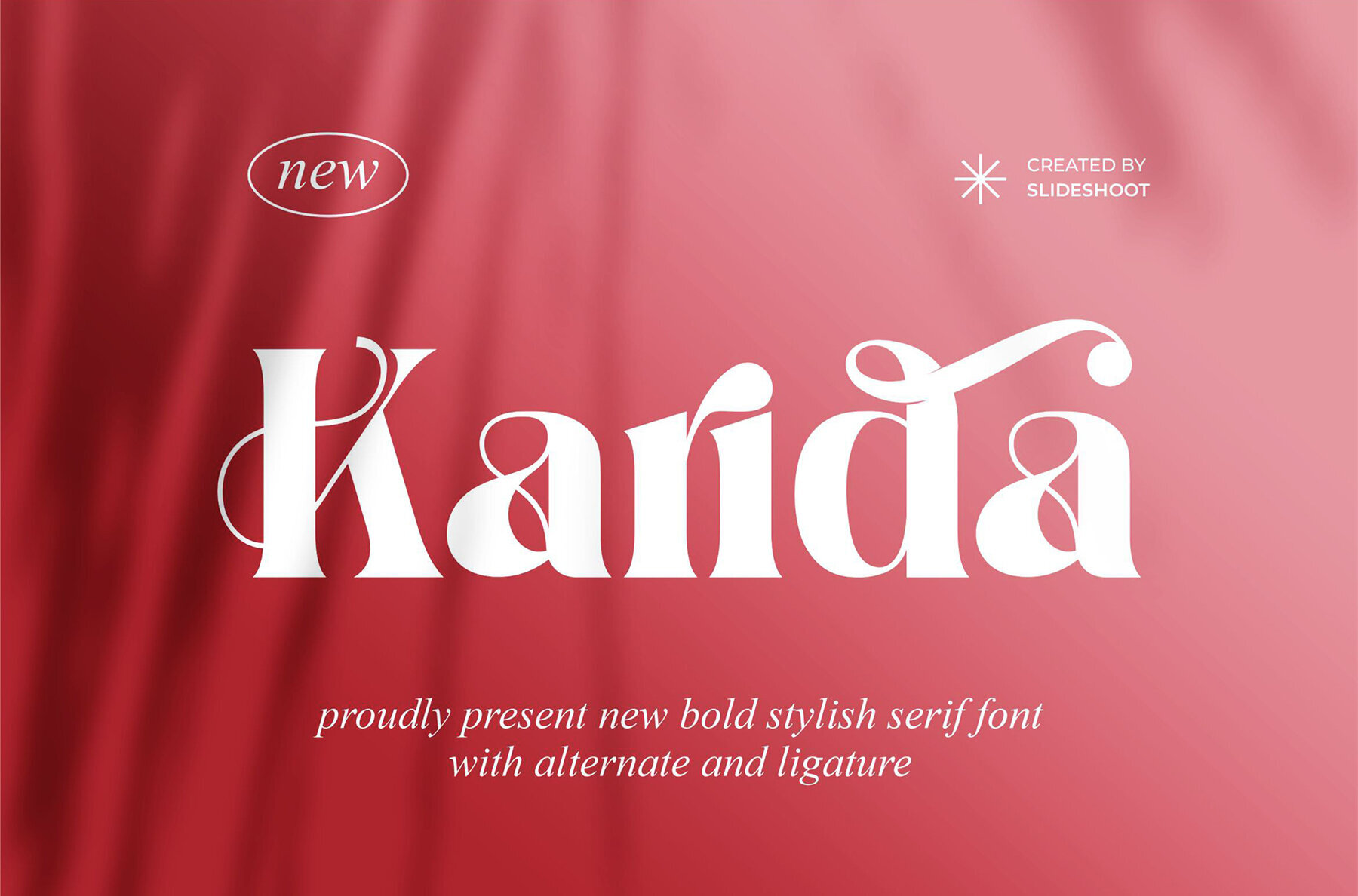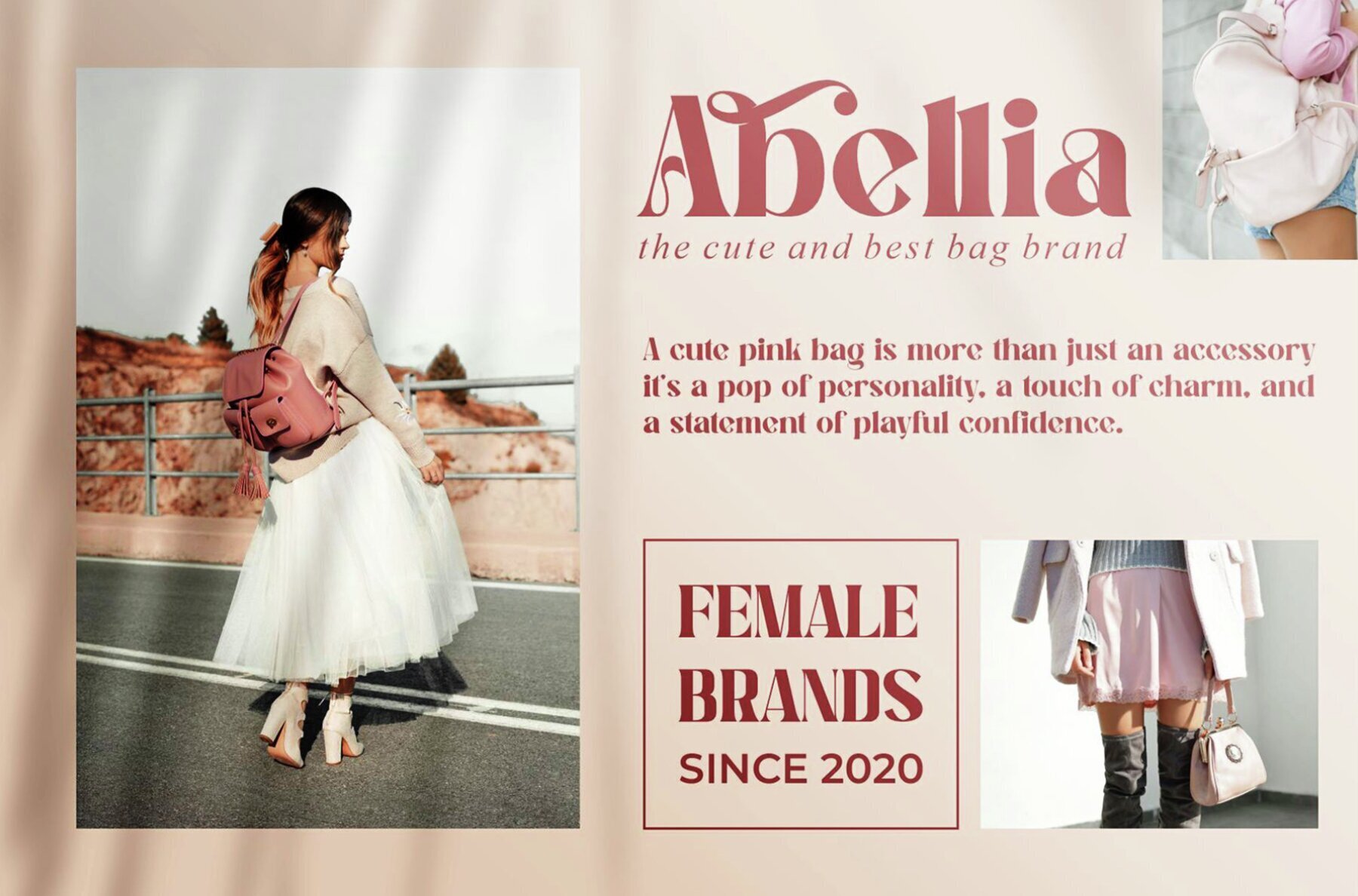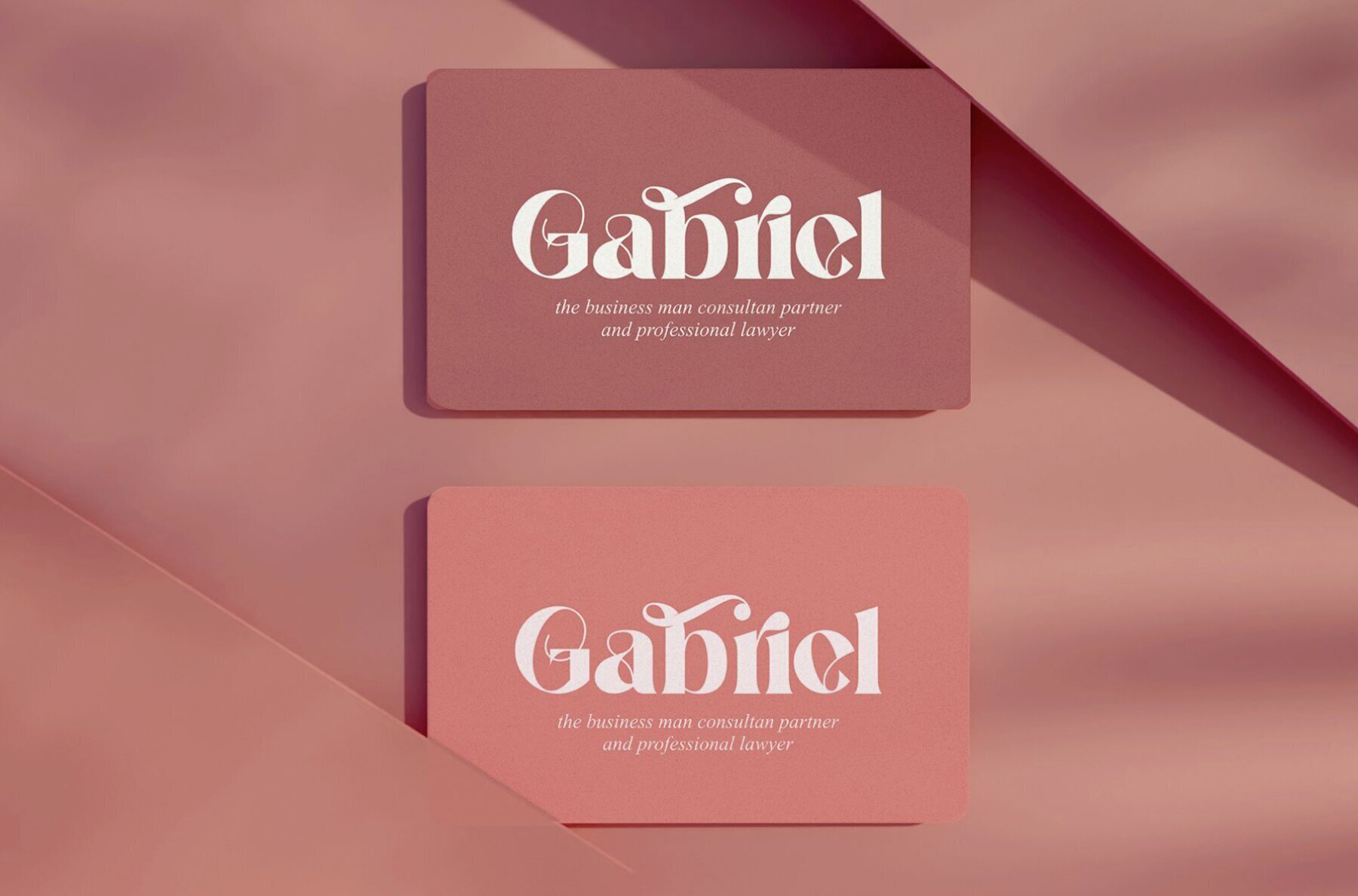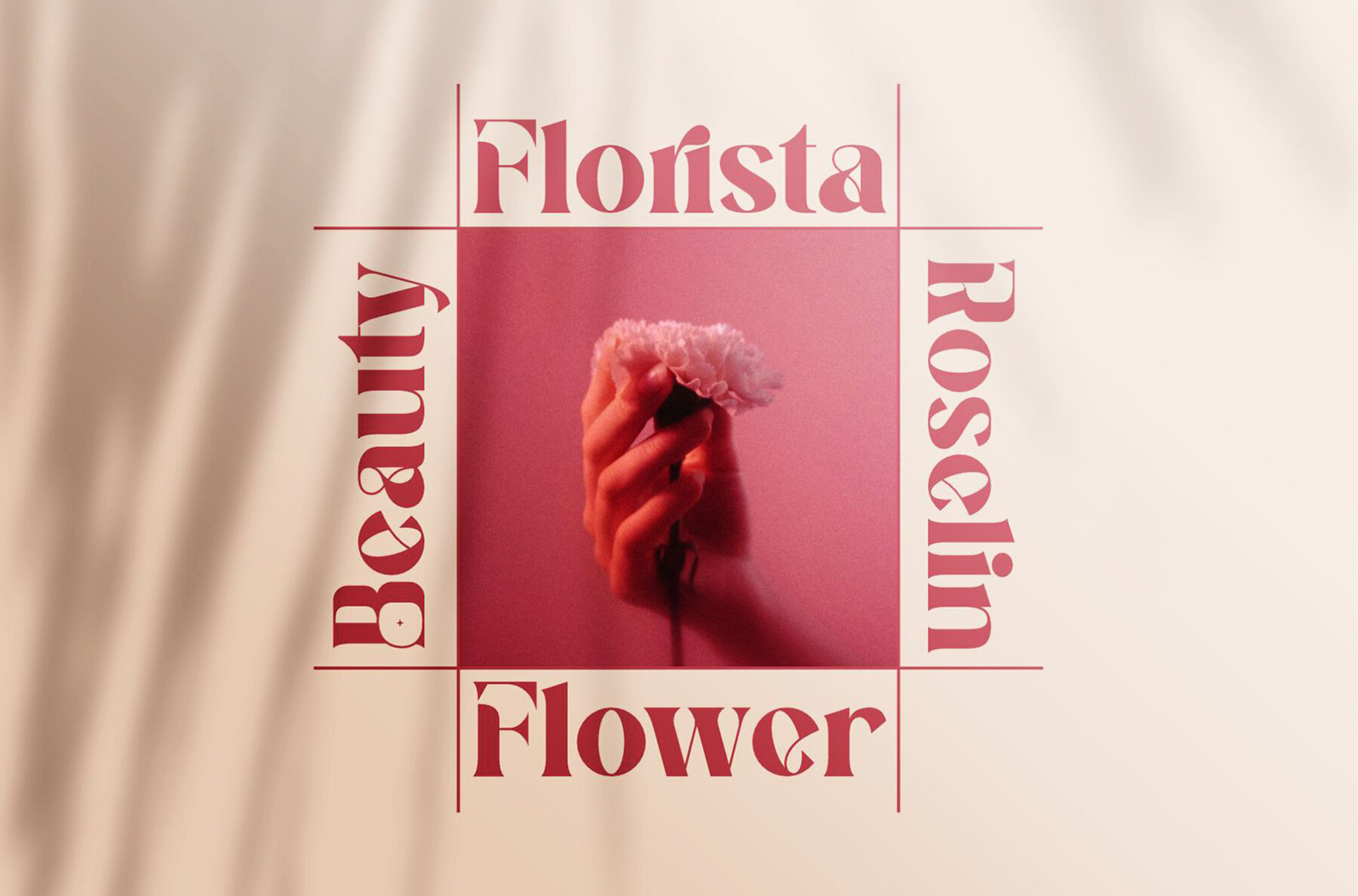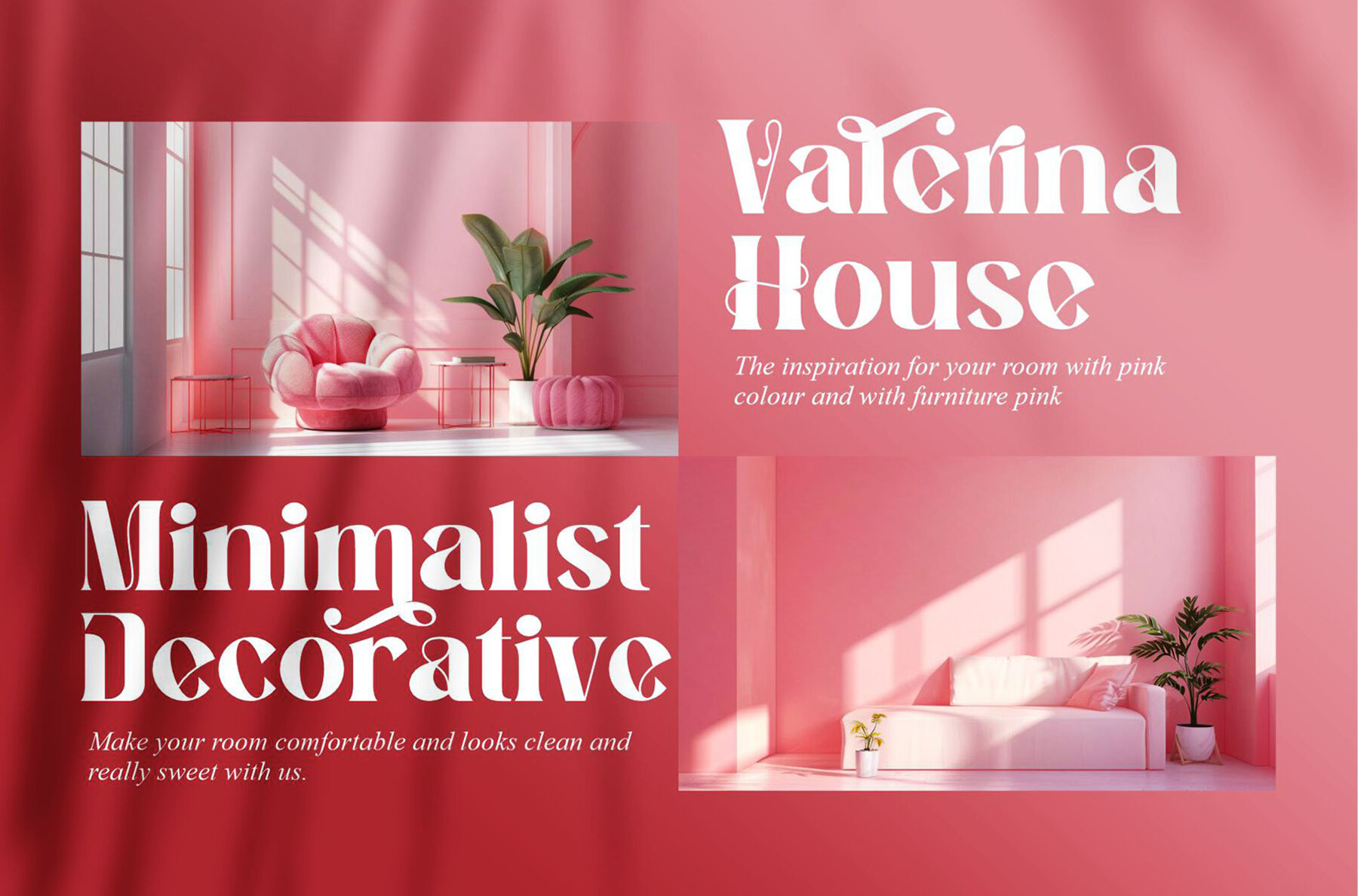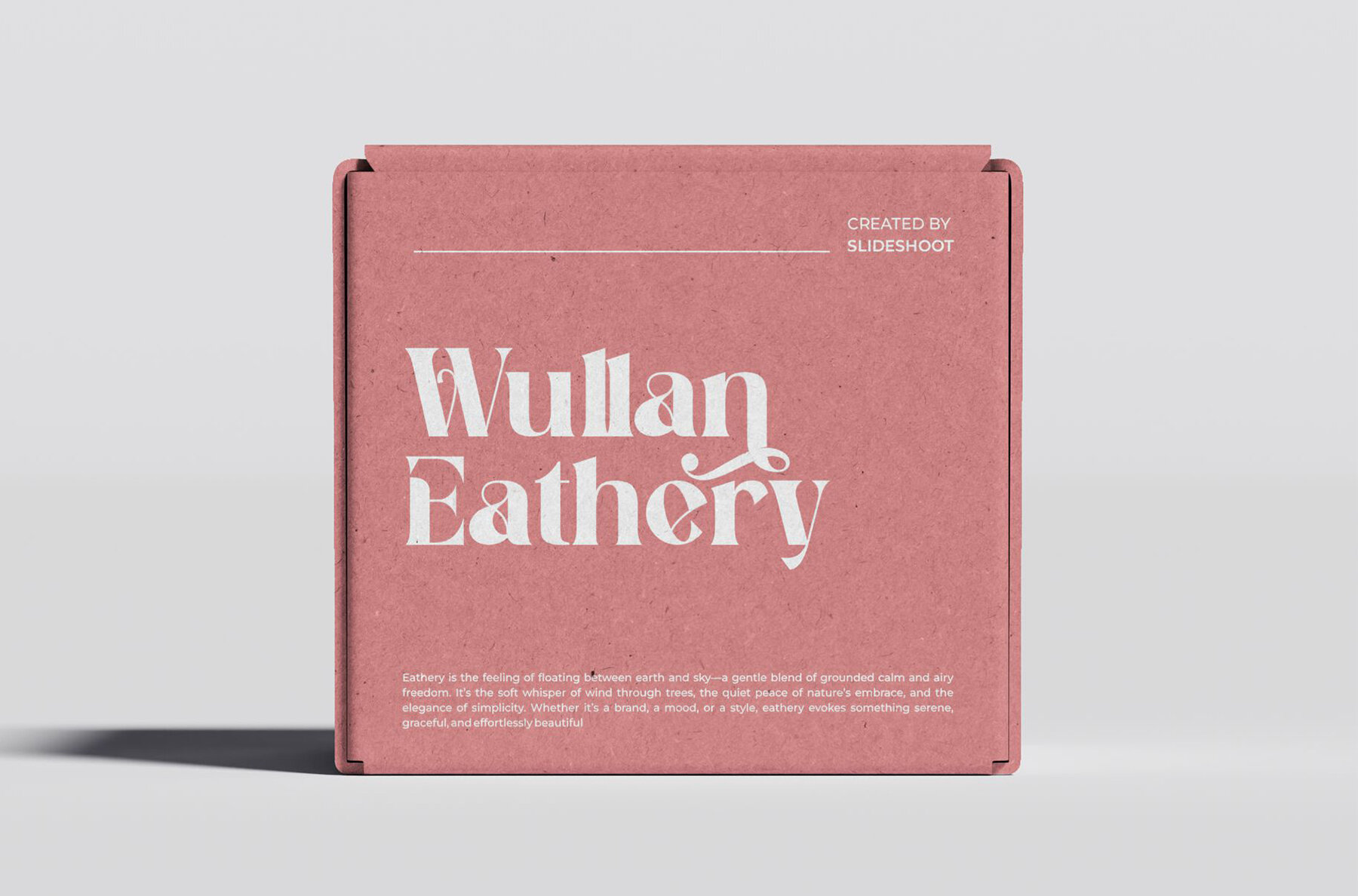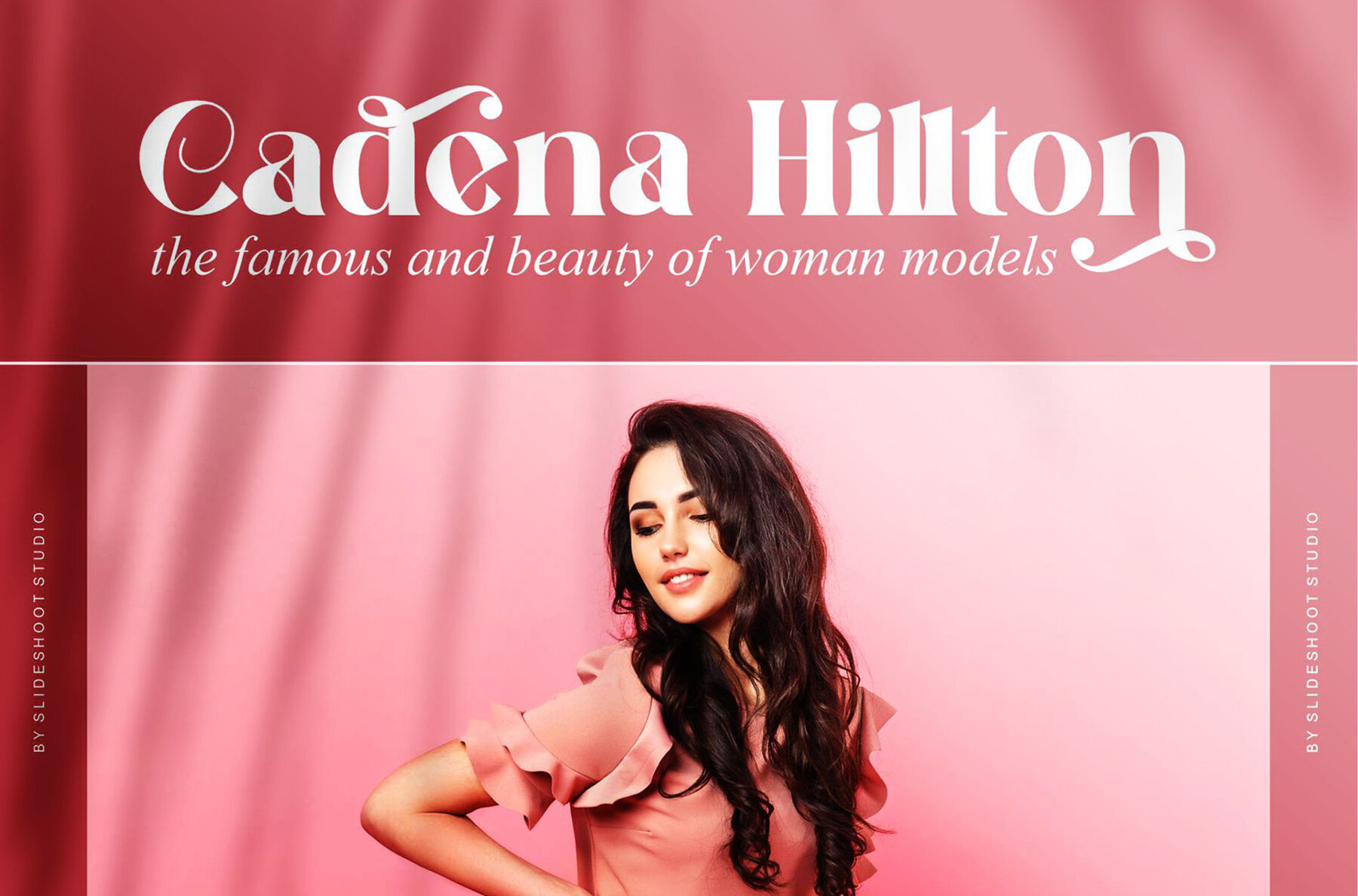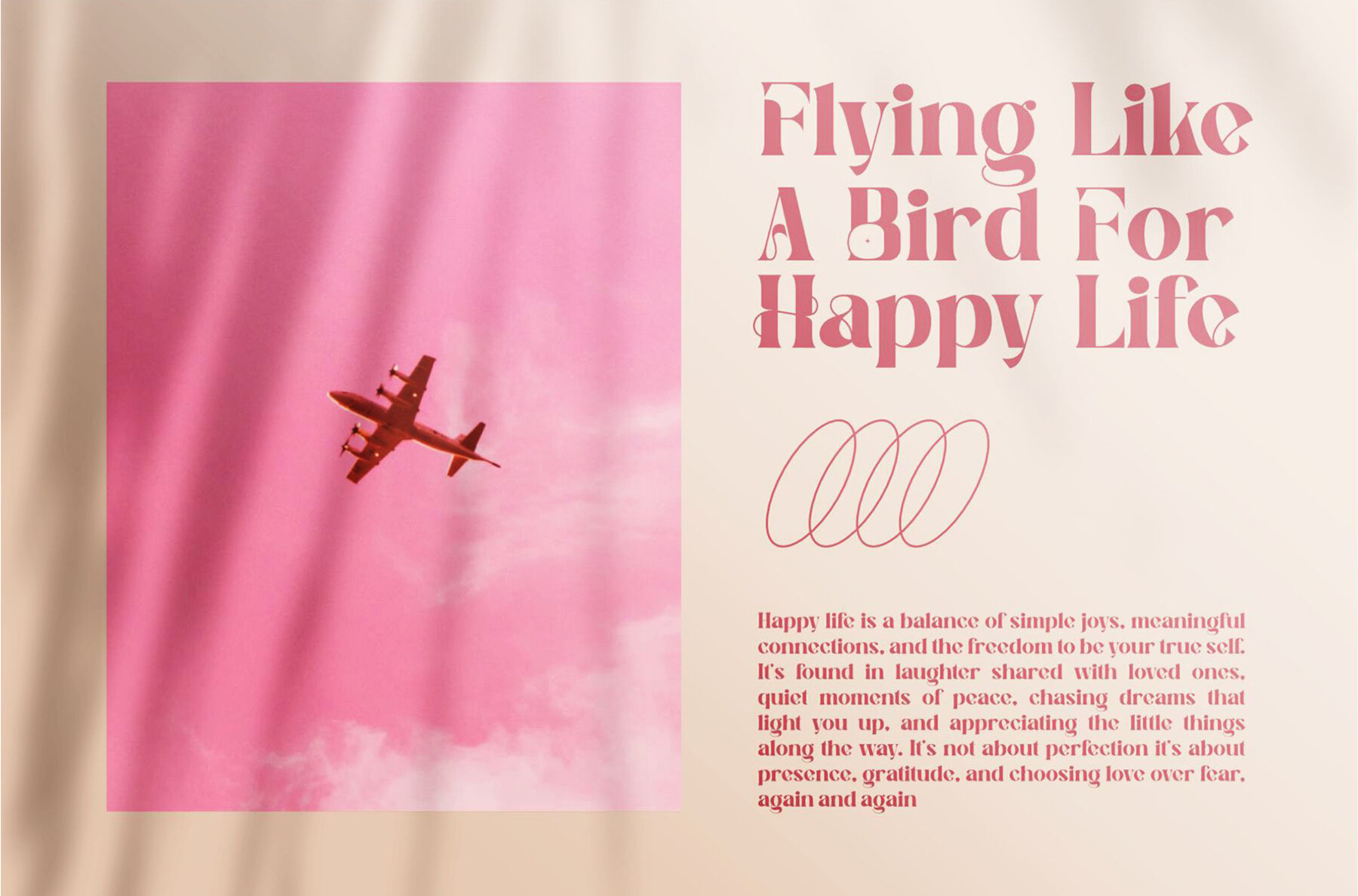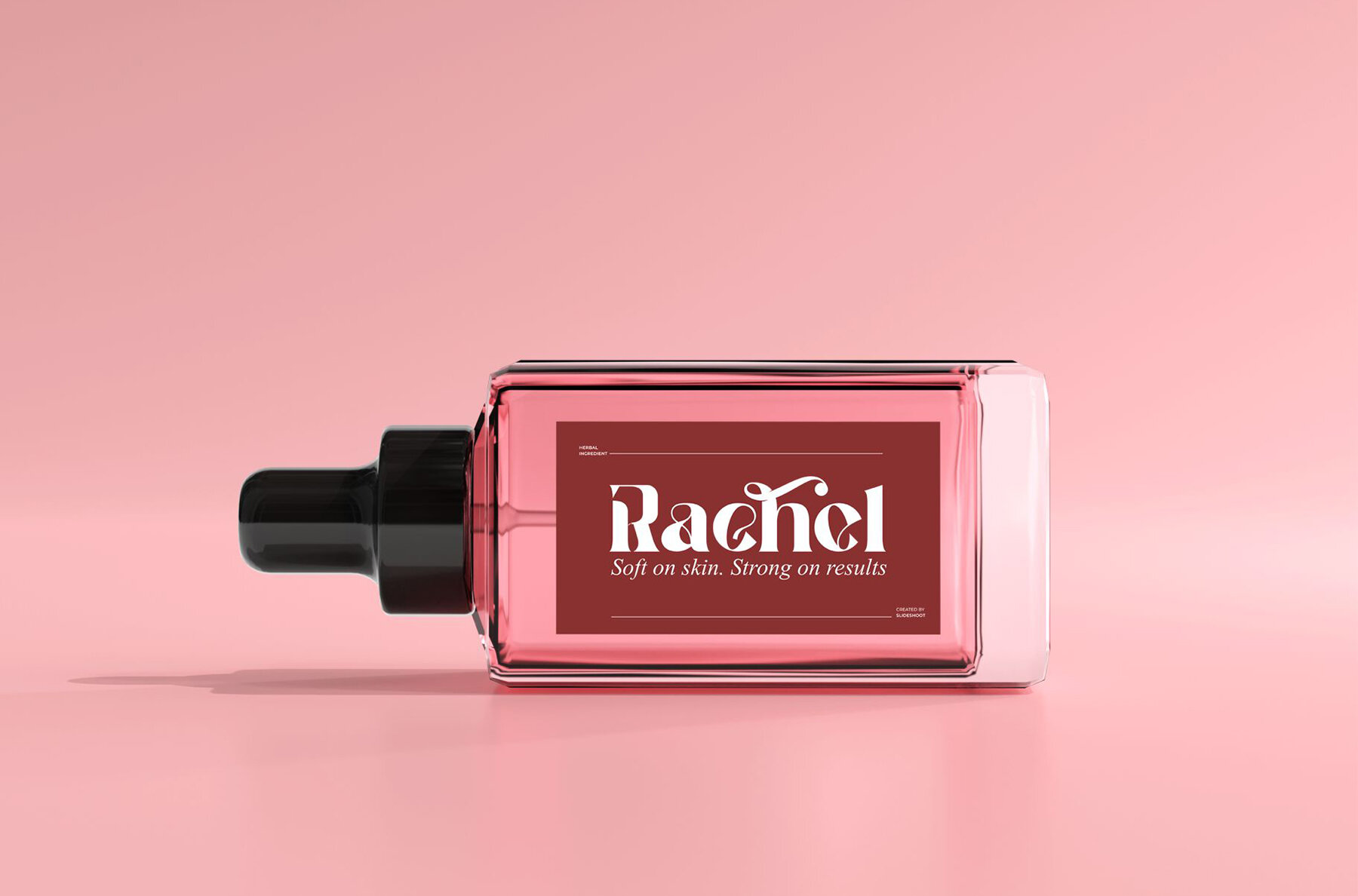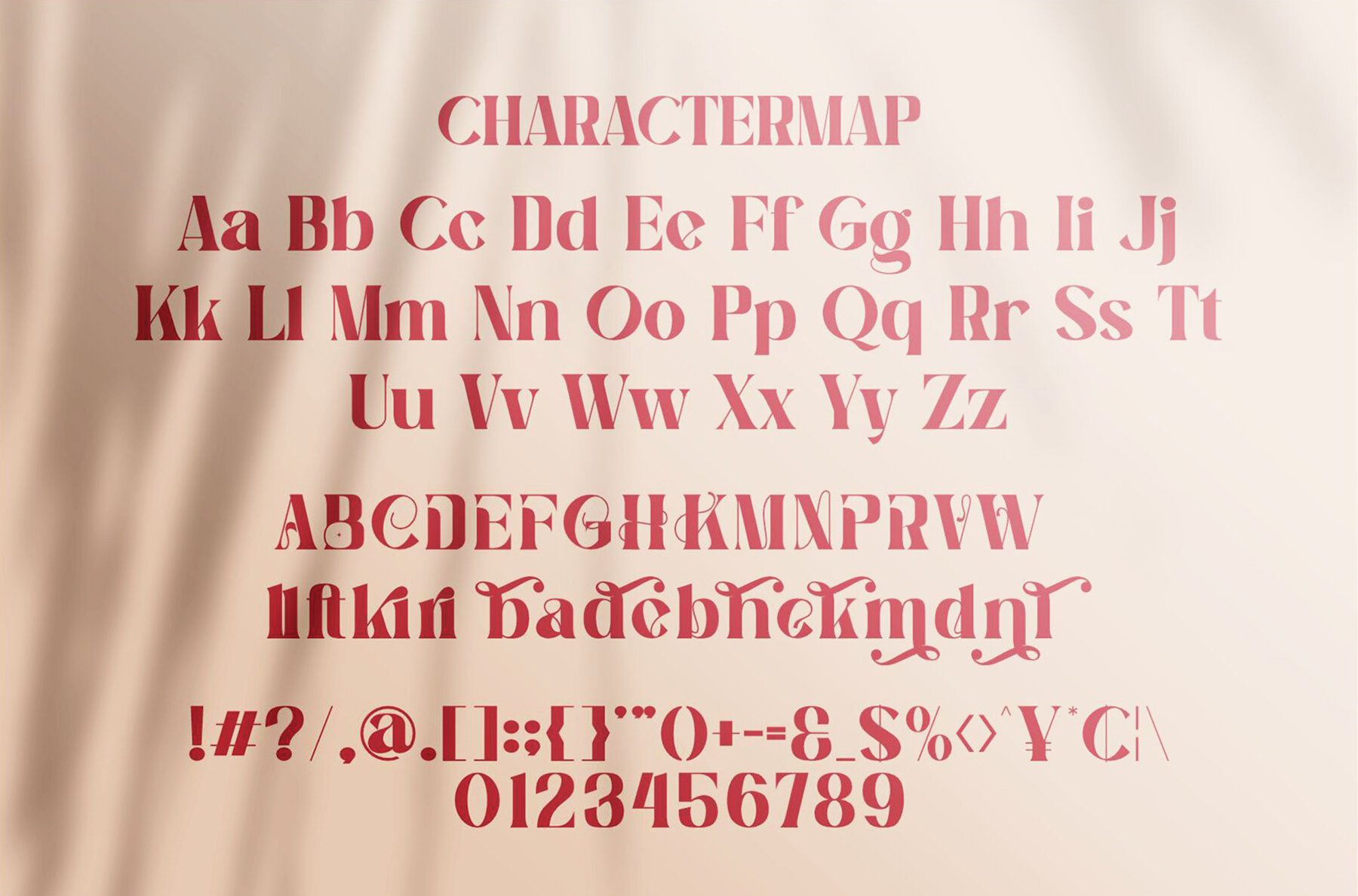
Karida Font
Karida
Karida is a captivating choice for designers seeking a bold serif font with a trendy and playful touch. Its bouncy and cute display style is infused with a unique wood-themed character, making it stand out in any design project. Perfect for pairing with various creative works, Karida enhances designs such as invitation cards, company logos, movie titles, business cards, book titles, and brand identities.Karida: A Bold Serif Font with a Wood Theme